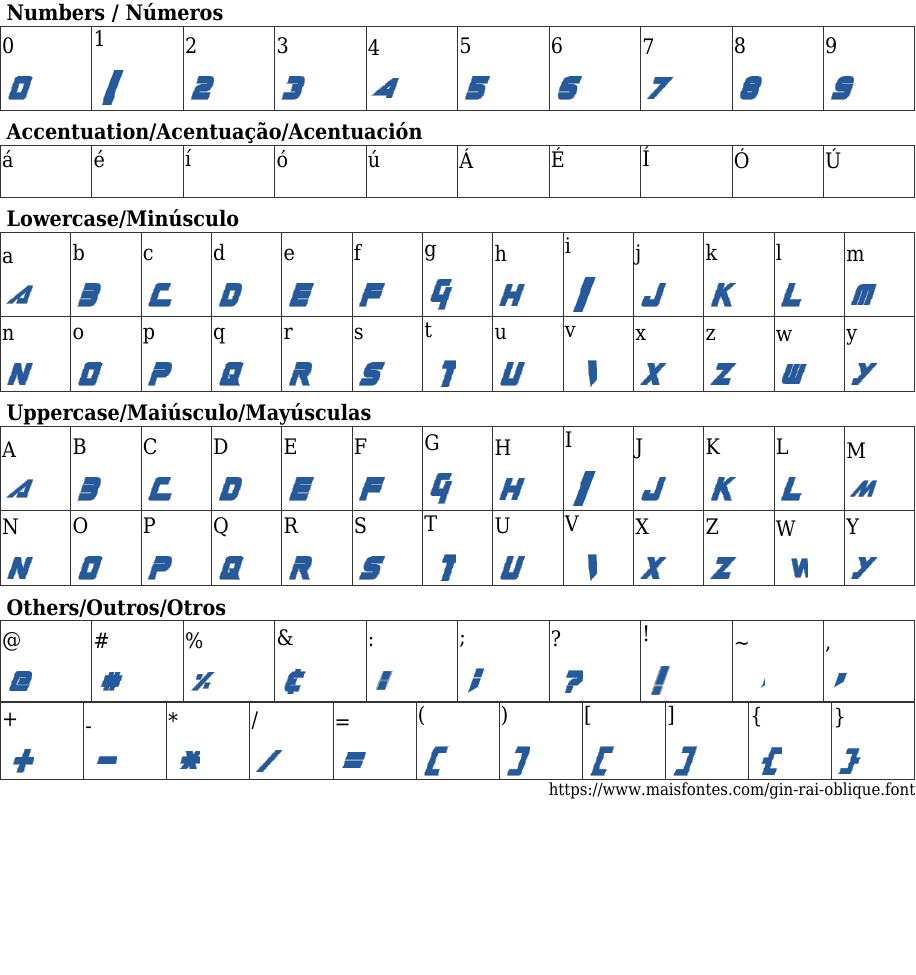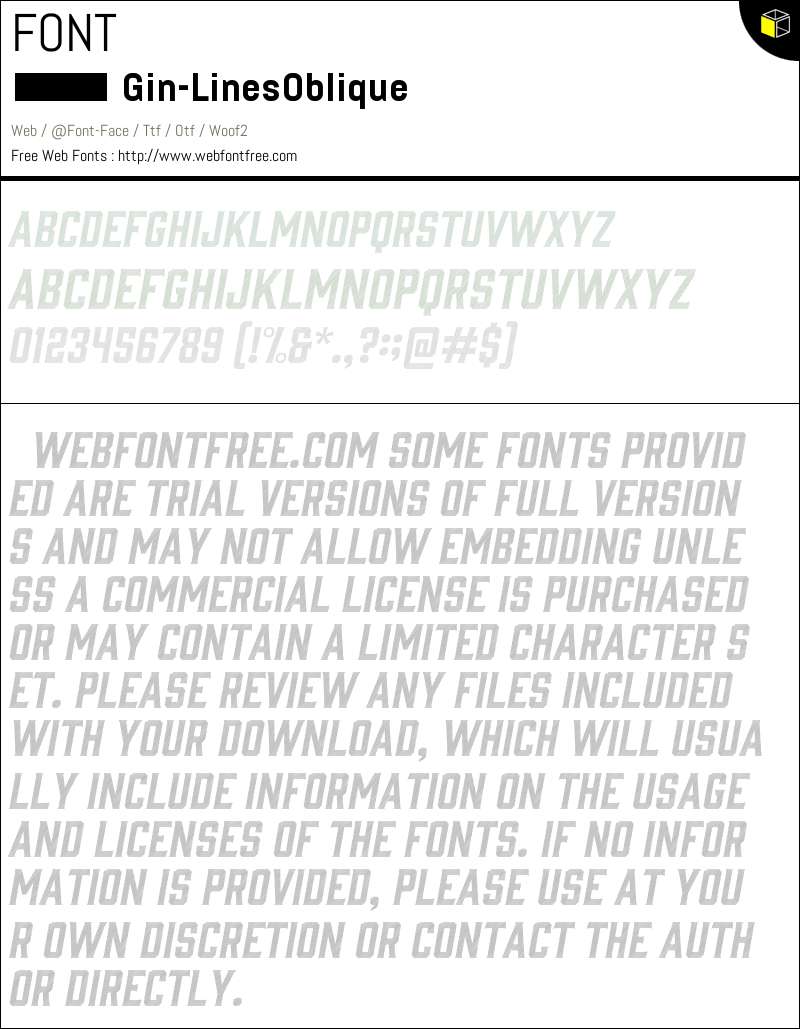
Gin Oblique Font Free Download . This vintage display typeface was inspired by the likes of old serifs and classic bottles of whiskey and gin. This vintage display typeface was inspired by the likes of old serifs and classic bottles of whiskey and gin. Es werden nur die ersten 50 einfachen glyphen gin w00 round oblique angezeigt! Explore gin designed by mattox shuler at adobe fonts. Gin comes in four different styles as seen below with oblique counterparts. Like a brother to bourbon, gin is distilled from similar letterforms, but condensed less. Gin font for the web site and photoshop in all styles. Gin oblique by adobe systems incorporated. Gin display font is a versatile family of fonts designed for strong, classic branding. This vintage display typeface was inspired by the likes. Gin font family is a vintage display typeface inspired by classic whiskey and gin bottles, designed for strong branding. A typeface with 2 styles, available from adobe fonts for sync and web use.
A typeface with 2 styles, available from adobe fonts for sync and web use. This vintage display typeface was inspired by the likes. Like a brother to bourbon, gin is distilled from similar letterforms, but condensed less. Gin font for the web site and photoshop in all styles. Gin font family is a vintage display typeface inspired by classic whiskey and gin bottles, designed for strong branding. Explore gin designed by mattox shuler at adobe fonts. Gin display font is a versatile family of fonts designed for strong, classic branding. This vintage display typeface was inspired by the likes of old serifs and classic bottles of whiskey and gin. Es werden nur die ersten 50 einfachen glyphen gin w00 round oblique angezeigt! Gin oblique by adobe systems incorporated.
Gin Oblique Font Free Download Gin comes in four different styles as seen below with oblique counterparts. Gin font family is a vintage display typeface inspired by classic whiskey and gin bottles, designed for strong branding. A typeface with 2 styles, available from adobe fonts for sync and web use. Gin oblique by adobe systems incorporated. This vintage display typeface was inspired by the likes. This vintage display typeface was inspired by the likes of old serifs and classic bottles of whiskey and gin. Explore gin designed by mattox shuler at adobe fonts. Gin comes in four different styles as seen below with oblique counterparts. Es werden nur die ersten 50 einfachen glyphen gin w00 round oblique angezeigt! Gin font for the web site and photoshop in all styles. Gin display font is a versatile family of fonts designed for strong, classic branding. This vintage display typeface was inspired by the likes of old serifs and classic bottles of whiskey and gin. Like a brother to bourbon, gin is distilled from similar letterforms, but condensed less.